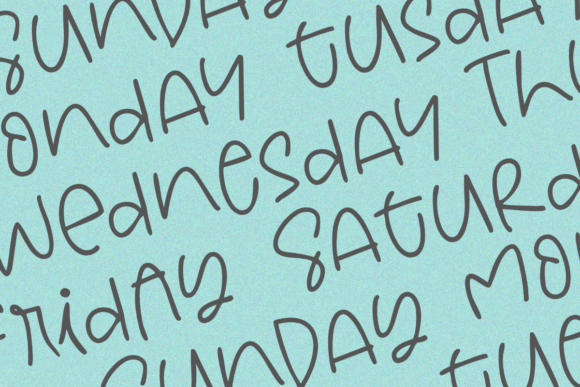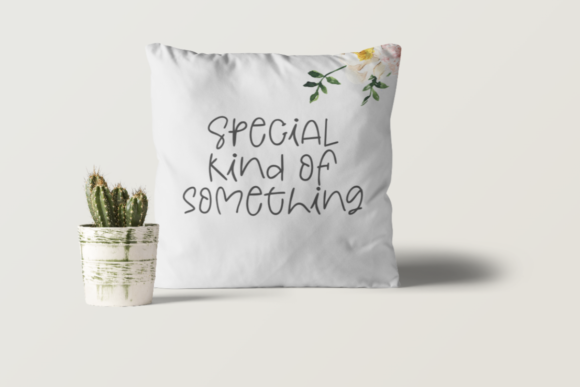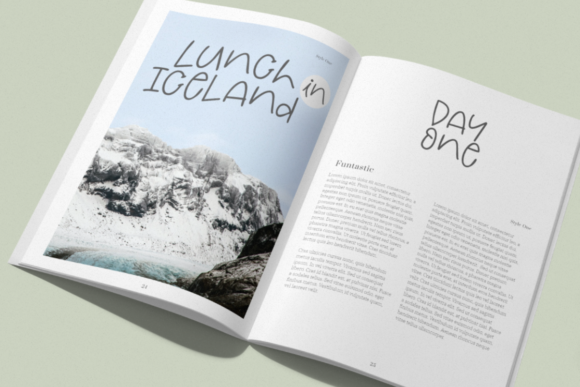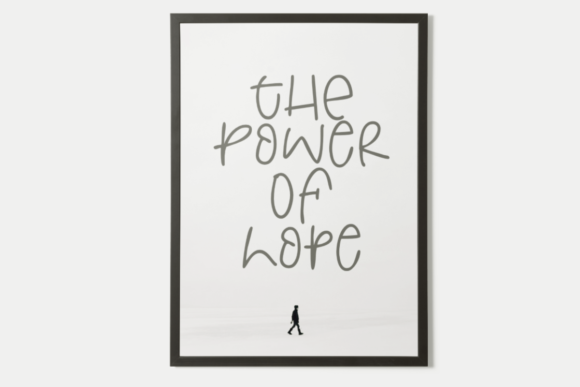
Weeknight Font
About Weeknight Font
Weeknight is a fun and trendy handwritten font. Whether you’re looking for fonts for Instagram or calligraphy scripts for DIY projects, this font will turn any creative idea into a true piece of art!